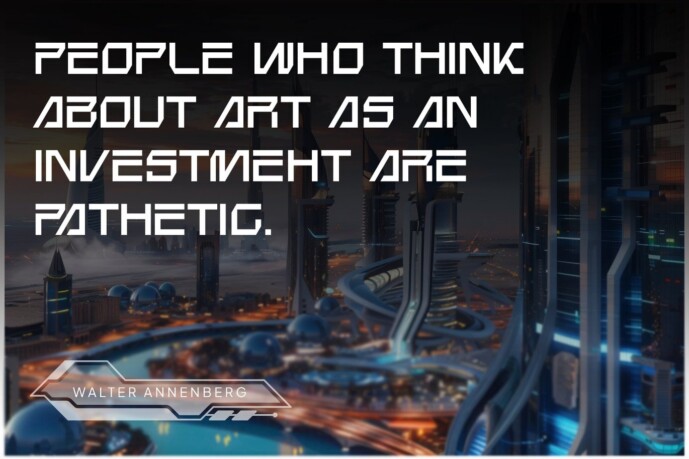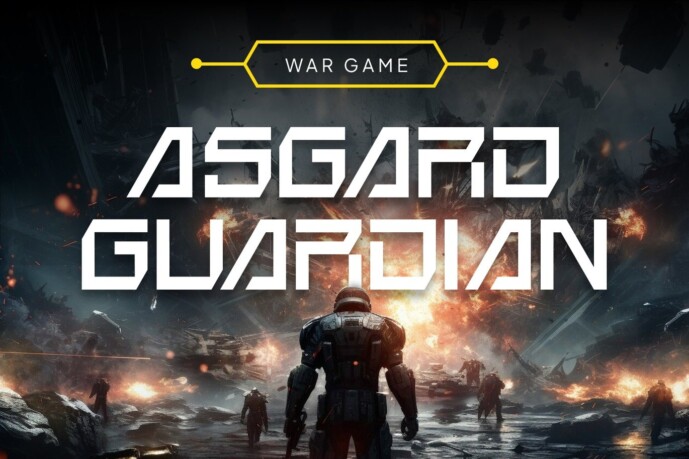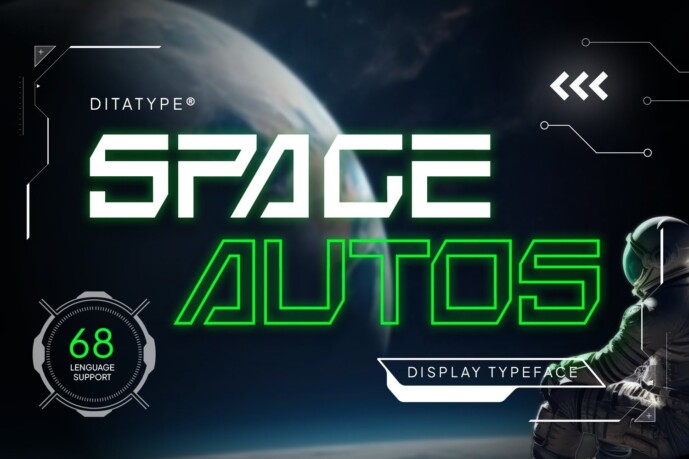
Space Autos Font
Space Autos Font, a sleek and futuristic display font designed to make a lasting impression. Presented in all caps with a balanced weight that isn’t too thick, Space Autos combines sharp, angular angles with a cutting-edge style. Space Autos offers a clean, forward-thinking look that stands out in any space.